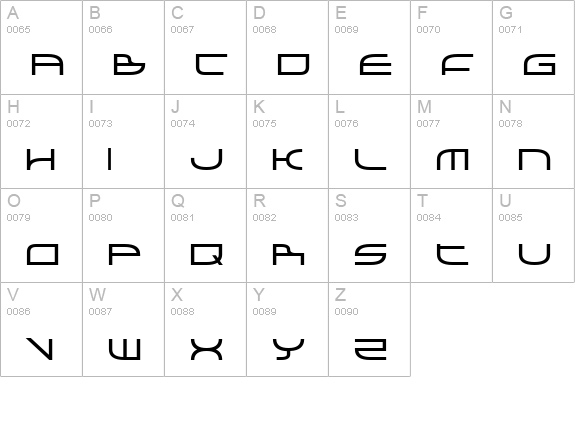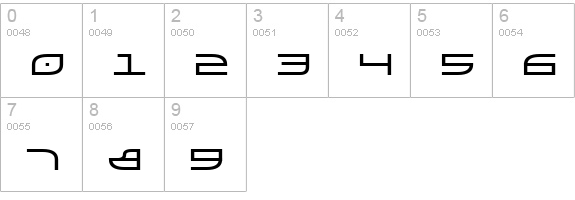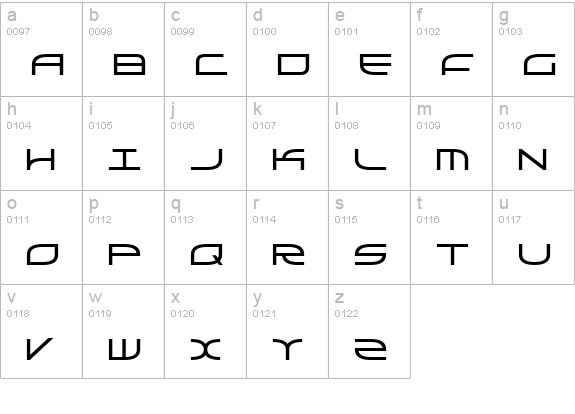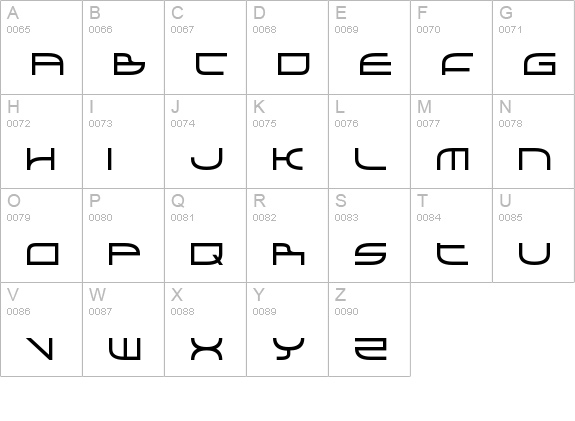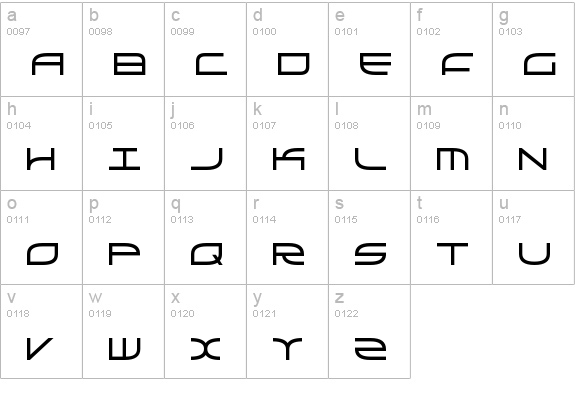
Introducing GalgaBold - a bold and striking font that exudes confidence and sophistication. With its clean lines and distinct curves, GalgaBold is perfect for making a bold statement in your designs. This versatile font is ideal for a wide range of projects, from branding to editorial design. The best part? GalgaBold is available for free download at FontsMarket.com. Whether you're working on a personal project or a professional assignment, this font is sure to elevate your designs and make a lasting impression. Don't miss out on this opportunity to add GalgaBold to your font library today!